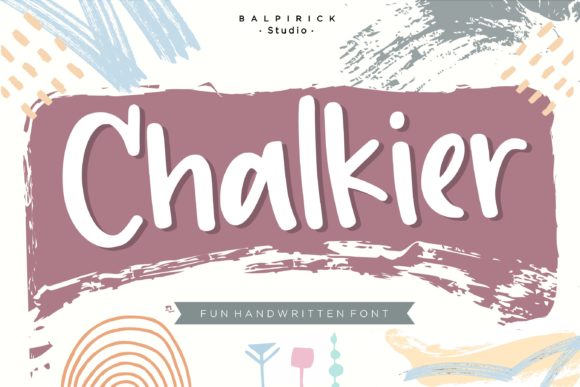
Welcome to the world of Chalkier Font, a delightful script font that will add a touch of whimsy and charm to your creative projects. Step into the realm of mobile app design and let Chalkier be your guide. This font is crafted with meticulous care, ensuring each letter dances across the screen with elegance and playfulness.
Chalkier is more than just a font; it's an experience. Its charming hand-drawn style evokes a sense of nostalgia, reminding you of childhood adventures and cherished memories. With Chalkier, you can bring that same magic to your digital creations.
Imagine crafting mobile app designs that captivate users from the very first glance. Chalkier's unique personality shines through in every word, creating an interface that feels both inviting and engaging. Whether you're designing a game, a productivity tool, or an e-commerce platform, Chalkier has the versatility to match your vision and create a truly unforgettable user experience.
Chalkier's versatility extends beyond mobile app design. Unleash your creativity in branding projects, where Chalkier's playful nature adds a touch of whimsy to logos, business cards, and marketing materials. Let Chalkier be your muse as you create social media posts that pop, wedding invitations that enchant, and product packaging that captivates customers.
With Chalkier, the possibilities are endless. Its friendly and approachable style makes it perfect for crafting heartfelt messages, while its playful charm adds a touch of lightheartedness to any project. Whether you're a seasoned designer or just starting, Chalkier is the font that will elevate your creative game.